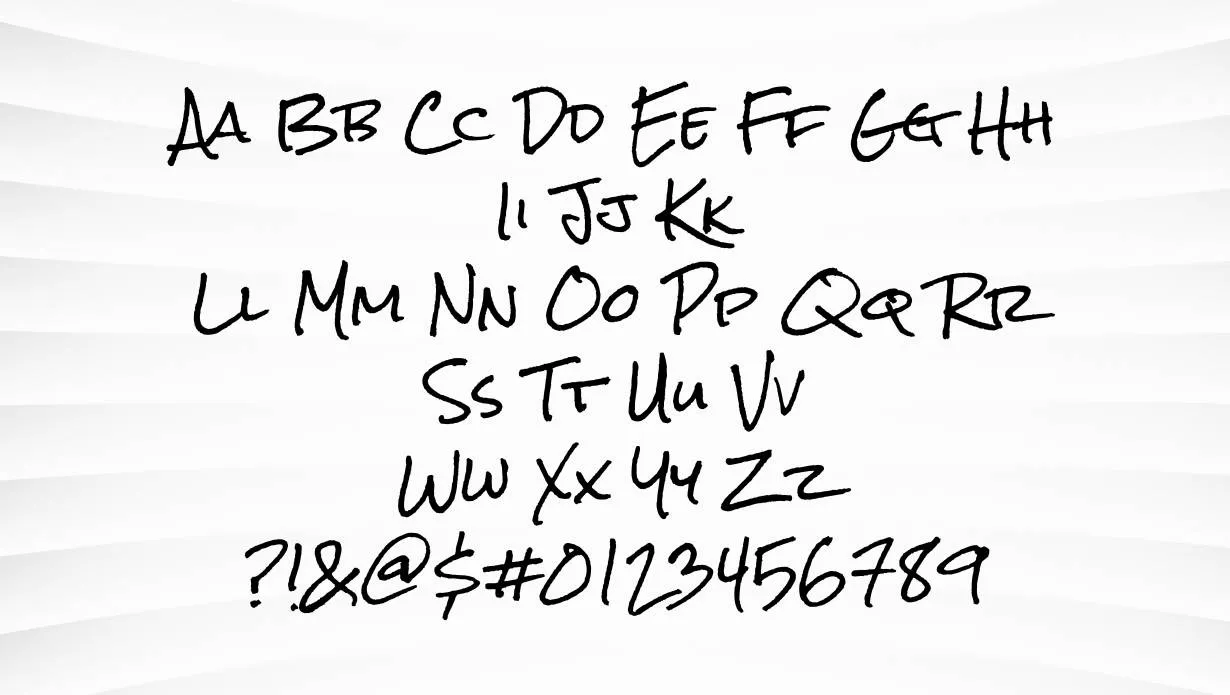
Rock Salt Font is a playful and informal typeface known for its relaxed design. It’s frequently used in projects that aim to create a laid-back and friendly atmosphere, such as beach-themed branding, casual restaurant menus, and creative designs.
The font’s easygoing style establishes a connection with the audience, making it a perfect choice for projects with a casual and approachable tone.
| Name | Rock Salt Font |
| Designer | Sideshow |